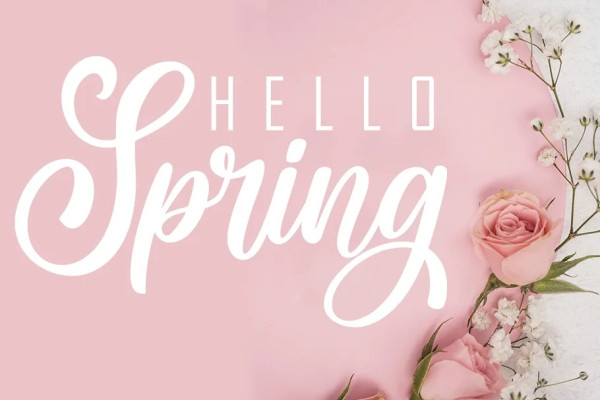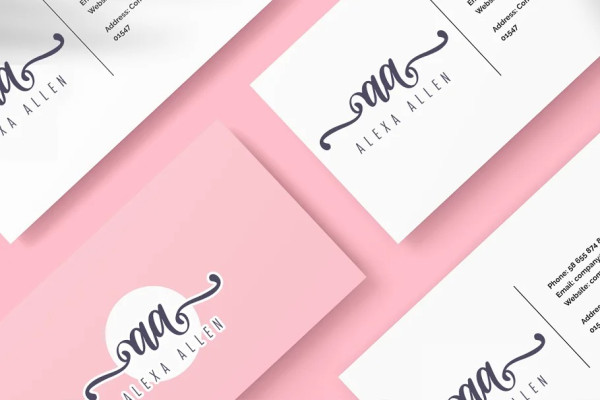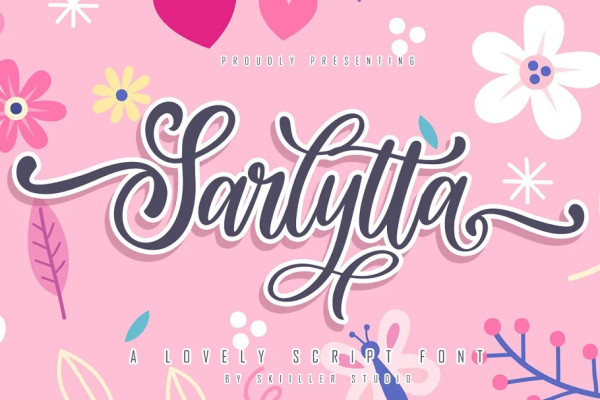
Sarlytta Font
Sarlytta Font – A Lovely Script Font with a modern and cool style designed with many features more than 200+ alternate encoded PUA and more than 400+ GLYPHS, suitable for promotion, business, company, clothing, wedding and more